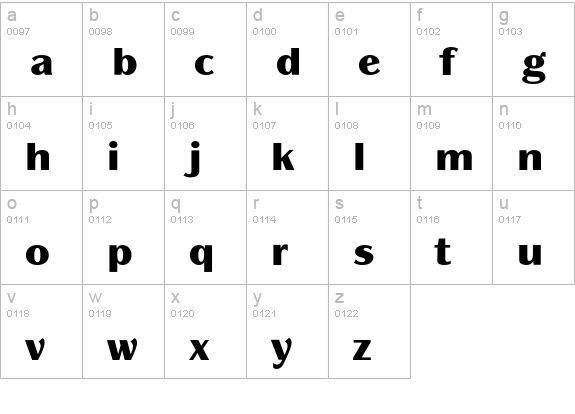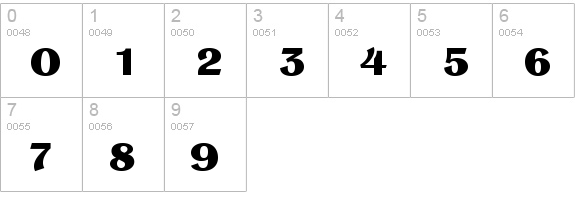
PanacheEF-Black Font Details
PanacheEF-Black is a maximum-weight, dramatic variant in the PanacheEF typeface family \xE2\x80\x94 well suited to maximum-impact headlines, posters, and packaging.
PanacheEF-Black is a bold and elegant font that exudes sophistication and style. It is the perfect choice for creating eye-catching headlines, logos, and branding materials that demand attention. With its sleek and contemporary design, PanacheEF-Black adds a touch of class to any project. This font features sharp and distinct letterforms, ensuring that every character stands out with utmost clarity. The heavy weight of the letters adds a sense of authority and impact, making it ideal for designs that require a strong visual presence. But what sets PanacheEF-Black apart is that it is not just a remarkable font, it is also free! Yes, you read that right. PanacheEF-Black is freely available to download at FontsMarket.com, a trusted source for high-quality fonts. Whether you're a professional designer or a hobbyist, you can now access this exceptional font without breaking the bank. With PanacheEF-Black, you can elevate your designs to a whole new level of sophistication and professionalism. Its versatility allows it to be used in a wide range of projects, from print materials to digital designs. Whether you're working on a poster, a website, or a magazine layout, this font will effortlessly catch the viewer's attention and leave a lasting impression. The PanacheEF-Black font is designed with utmost precision and attention to detail, ensuring that every character is visually appealing and harmonious with the overall design. Its clean and sharp lines give it a modern and timeless feel, making it a valuable addition to any designer's toolkit. So don't miss out on the opportunity to enhance your designs with PanacheEF-Black. Download it for free at FontsMarket.com and let your creativity shine. Elevate your projects and create a lasting impact with this stunning font.